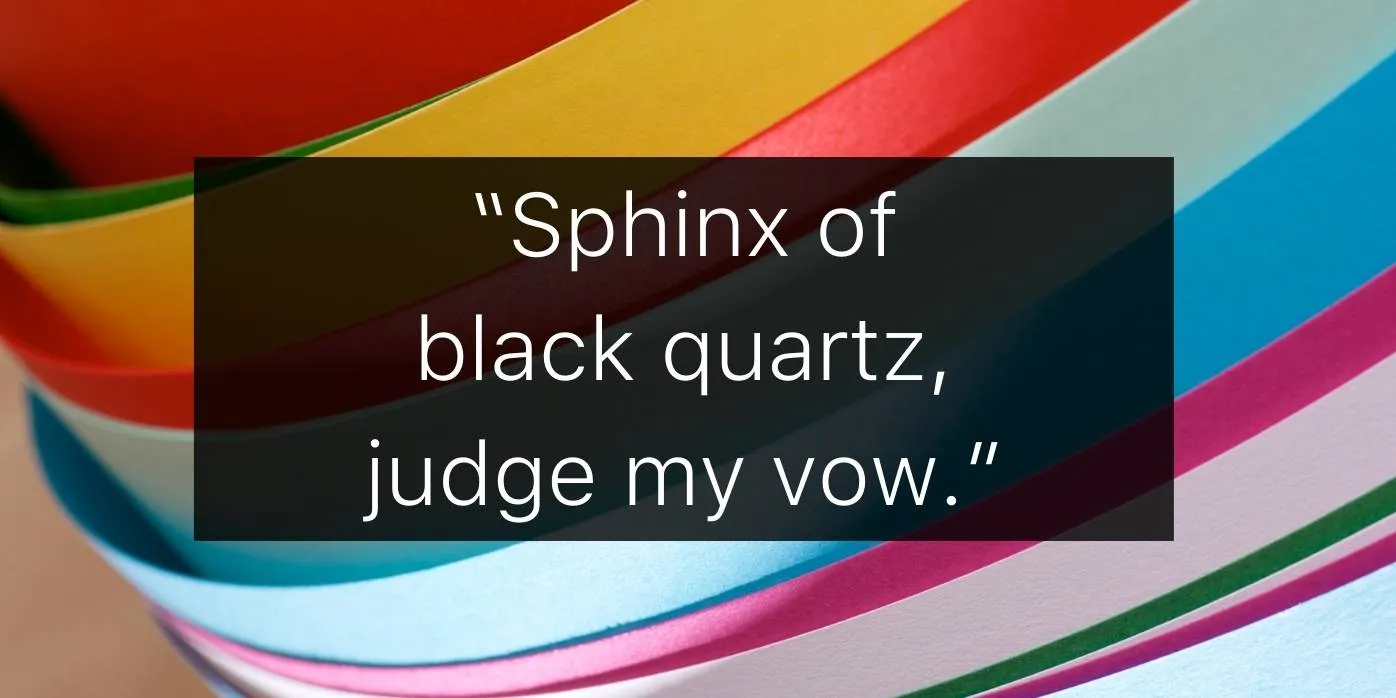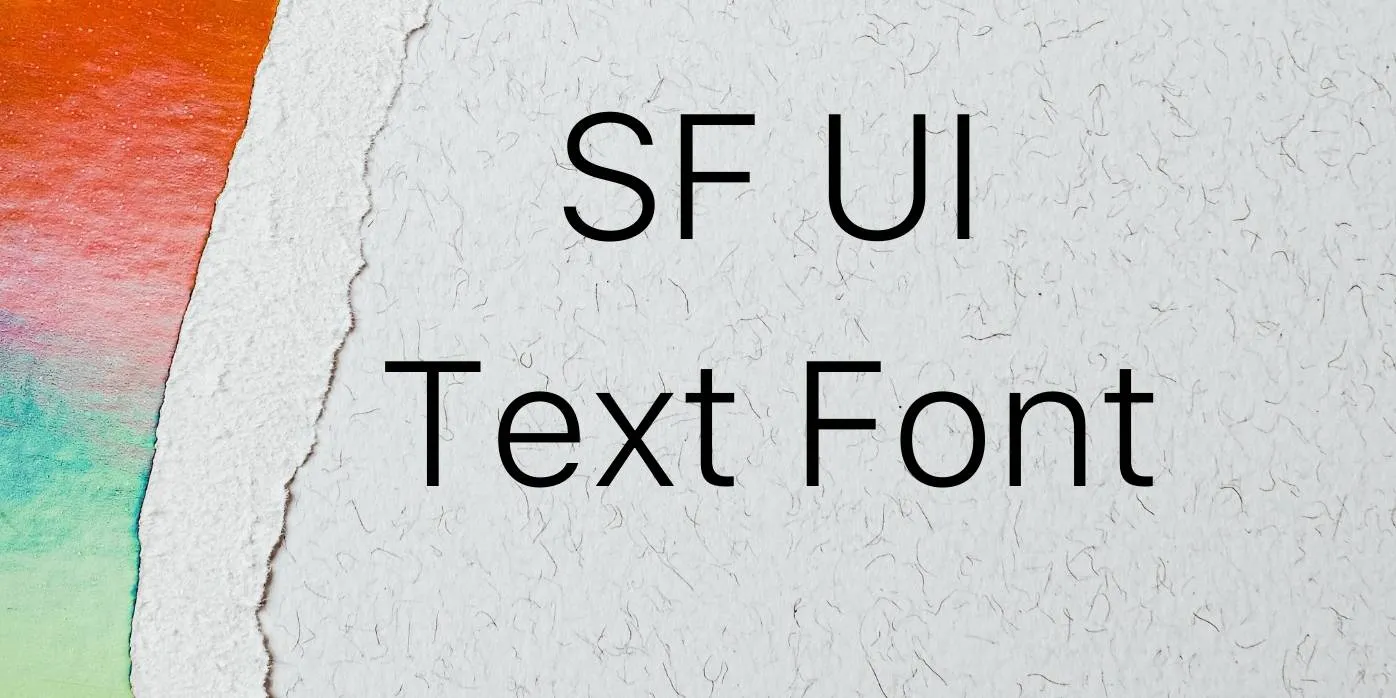
SF UI Text font
SF UI Text font was developed and published by Apple Incorporation. This typeface belongs to the Sans-Serif typeface. This classy font is used in a variety of applications such as macOS, iOS, watchOS, and tvOS. This tremendous font has a simple and refined design that makes it perfect for use in digital interfaces.
This awesome typeface has different keen features which is why it is used by millions of people around the world. This cozy font has a very legible typeface that makes it perfect for use in digital interfaces, where readability is critical. This classy typeface is not available of Dafont you can easily download this typeface from our websites. This font is best for Adobe, and Canva.
Its copy and paste function is very useful for different designs. Helvetica Font is one of the most similar to this classy typeface. This classy font is available in different weights including thin, light, regular, medium, bold and black. This cute font is a great option for creating an elegant and stylish interface.
Its online tool generator allows you to use this typeface for different graphic designs. This fabulous font has a very simple and refined design that makes it perfect for use in digital interfaces. This tremendous font is available in different styles which makes it unique.